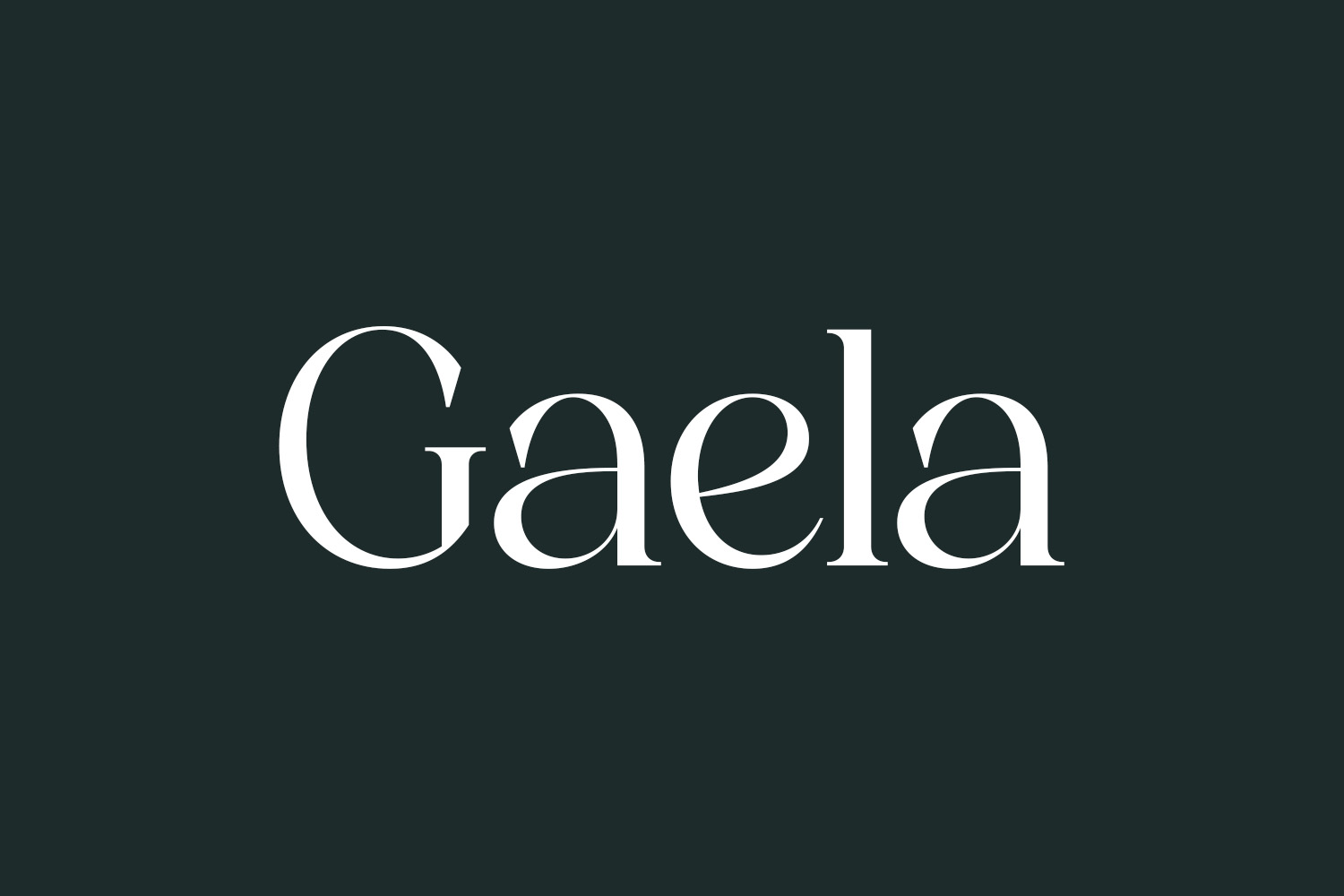
Gaela Free Font is a modern and classic serif typeface with a unique style and modern look. This typeface is perfect for an elegant & luxury logo, book or movie title design, fashion brand, magazine, clothes, lettering, quotes, and so much more. Gaela Free Font is free for personal use only. Please purchase the full version for commercial use.